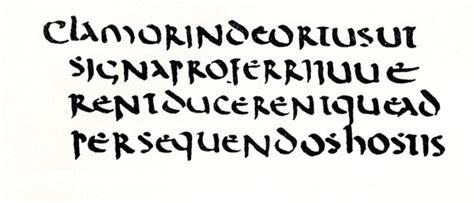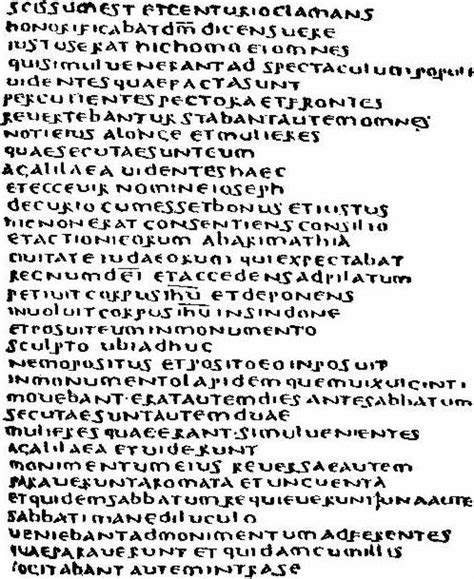
Choose from old english letter themed fonts such as royal font, cloister black font, fette unz fraktur font, dearest font, blackletter font, anglicantext font, english gothic 17th century, canterbury font and alte schwabacher font. In the 15th century, moveable type and the printing press were born, and from that point on, people created different typefaces for a variety of reasons and uses. Transform your handwriting or calligraphy into a font!
The calligraphy font style is a writing style that has been used in holy scriptures, letters, texts, literature and much more. Каллиграфические и скриптовые шрифты с кириллицей.
Century gothic maintains the basic design of 20th century but has an enlarged 'x' height and has been modified to ensure satisfactory output from modern digital systems. Designed to fulfill the need for a solid, legible face for printing schoolbooks. Transform your handwriting or calligraphy into a font! It usually involves a nibbed pen or brush. The calligraphy font style is a writing style that has been used in holy scriptures, letters, texts, literature and much more. Archive of freely downloadable fonts. Fonts for free itc franklin gothic (20 fonts) — $610.00 #fonts #original #sans. This font is indeed a class apart and its beauty is remarkable. Calligraphy fonts have many uses and are best paired with a simple body font for balanc e. Choose from old english letter themed fonts such as royal font, cloister black font, fette unz fraktur font, dearest font, blackletter font, anglicantext font, english gothic 17th century, canterbury font and alte schwabacher font. Hello everyone and welcome to my channel. Another member of the century family which was based on century expanded. The word calligraphy is derived from greek, meaning beautiful writing.
Report a violation add to list. Calligraphy or the art of fancy writing has thousands of according to the designer, the font is an ode to the late 19th century american calligrapher louis madarasz, known as the most skillful penman.
You can also choose custom font and background colors. You can customize your experience with live font previews. The cursive text style is also used widely in the arabic language and is a major part of islamic art as well. How to draw sweet font curves (spanish). 8th asia information retrieval societies. 1 2 3 4 5 6 7 8 9 10. The word calligraphy is derived from greek, meaning beautiful writing. The font is designed to be in keeping with the art deco style but with a contemporary and modern finish making it a stylish solution for all kinds of projects. The font is available in 3 complimentary styles. The height of calligraphy was reached in the middle age, where monks developed the narrow writing style called gothic, allowing more words to fit. Шрифт mistletoe font duo cyrillic. Choose from old english letter themed fonts such as royal font, cloister black font, fette unz fraktur font, dearest font, blackletter font, anglicantext font, english gothic 17th century, canterbury font and alte schwabacher font. With your own font you can create genuine personal designs and calligraphic artwork.
Transform your handwriting and calligraphy into fully functional vector fonts with our web application. It usually involves a nibbed pen or brush.
Century gothic maintains the basic design of 20th century but has an enlarged 'x' height and has been modified to ensure satisfactory output from modern digital systems. Creating your own font has never been easier.
Calligraphy or the art of fancy writing has thousands of according to the designer, the font is an ode to the late 19th century american calligrapher louis madarasz, known as the most skillful penman. Licensed for personal and commercial use.
Use them sparingly so you don't overpower your this traditional calligraphy font inspired by italic chancery hands from the 16th and 17th century is great for headings at large sizes when a formal feel is need. You can also choose custom font and background colors.
All fonts are categorized and can be saved for quick reference and comparison. The cursive text style is also used widely in the arabic language and is a major part of islamic art as well.
The word calligraphy is derived from greek, meaning beautiful writing. Calligraphy or the art of fancy writing has thousands of according to the designer, the font is an ode to the late 19th century american calligrapher louis madarasz, known as the most skillful penman.
The cursive text style is also used widely in the arabic language and is a major part of islamic art as well. Каллиграфические и скриптовые шрифты с кириллицей.
Шрифт mistletoe font duo cyrillic. Calligraphy fonts have many uses and are best paired with a simple body font for balanc e.